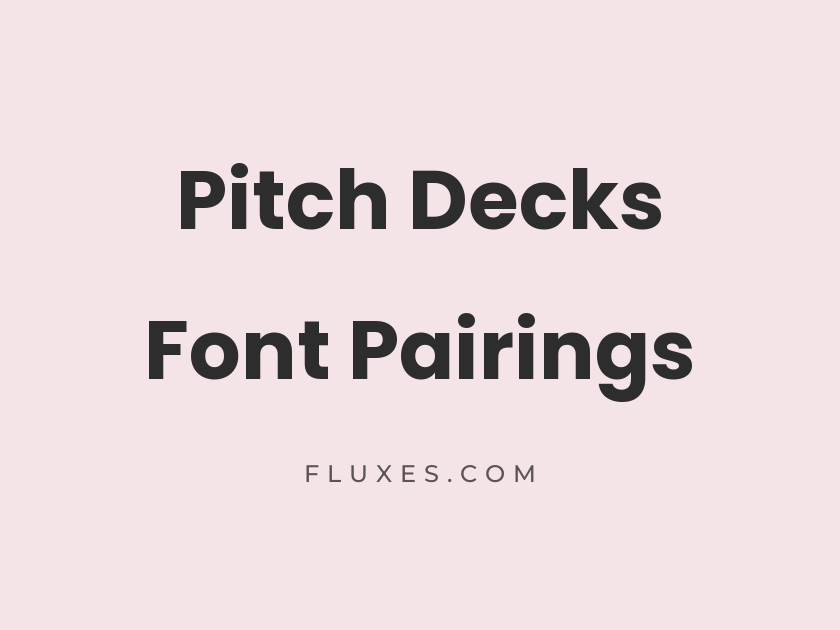
35 Best Font Pairings for Pitch Decks
A pitch deck lives or dies in seconds, and typography is doing more persuasive work than most founders realize. The right pairing signals credibility before an investor reads a single number, while a mismatched one undercuts even a strong story. These combinations are chosen for legibility at a distance, confidence on a title slide, and enough restraint to let your content, not your fonts, carry the meeting.
Poppins + Inter
Poppins brings geometric confidence to slide titles while Inter, built specifically for screens, keeps dense body copy and data labels crisp at small sizes. This is a dependable default for startup decks presented on laptops or projected in a boardroom.
Sora + Karla
Sora has a technical, slightly rounded character that reads as modern without feeling trendy, and Karla’s grounded lowercase letterforms keep supporting text approachable rather than cold. The pair suits SaaS and product decks that need to feel both engineered and human.
Space Grotesk + IBM Plex Sans
Space Grotesk’s quirky terminals give headlines personality, and IBM Plex Sans was engineered for exactly this kind of technical, information-dense reading. Together they read as credible for hardware, fintech, or developer-tool pitches.
Archivo Black + Archivo
Because both fonts share the same skeleton, pairing Archivo Black headlines with regular Archivo body text creates continuity without any visual seams. It is an efficient choice when you want one typographic family to carry an entire deck.
Libre Franklin + Open Sans
Libre Franklin’s tall x-height and confident weight make it read well even from the back of a room, while Open Sans is one of the most tested workhorse text faces available, keeping paragraphs calm and easy to scan.
Manrope + Work Sans
Manrope and Work Sans share compatible proportions and a similar neutral warmth, so financial slides full of charts and callouts feel unified rather than assembled from mismatched templates. This combination works especially well on metrics-heavy investor updates.
DM Serif Display + DM Sans
These two were designed as a family from the start, so the serif display headline and sans body share identical proportions while contrasting in tone. It suits consumer brand and DTC decks where a touch of editorial polish helps the story feel premium.
Fraunces + Karla
Fraunces has a wet, almost hand-finished quality that suggests craft and care, and Karla’s clean geometry keeps that warmth from tipping into whimsy on supporting slides. This pairing fits food, wellness, and lifestyle brand pitches particularly well.
Playfair Display + Open Sans
The high-contrast strokes of Playfair Display signal prestige on a title slide, and Open Sans’s neutrality lets that statement stand out without competing for attention. Reserve this combination for luxury, fashion, or hospitality pitches.
Bricolage Grotesque + Inter
Bricolage Grotesque has enough character in its curves to feel distinctive on a cover slide, while Inter’s neutrality keeps the rest of the deck grounded and readable. It is a good fit for founders who want a memorable but not overdesigned identity.
Epilogue + Nunito Sans
Epilogue’s slightly condensed, confident letterforms work well for punchy headline claims, and Nunito Sans keeps longer explanatory text soft and easy on the eye. This combination reads as approachable and international at once.
Outfit + Mulish
Outfit’s geometric simplicity mirrors a product story built around ease of use, and Mulish stays out of the way as a text face, which is exactly the point. Minimalist decks for consumer apps benefit most from this restraint.
Getting the pairing to work on stage
Limit yourself to two fonts per deck; a third almost always weakens hierarchy rather than adding polish.
Set body text no smaller than eighteen points when you expect a projector or a shared screen, since Google Fonts pairings only read well if the room can actually read them.
Test your chosen pair at the exact resolution and lighting of the pitch environment, not just on your own laptop, since contrast and legibility shift more than most founders expect.